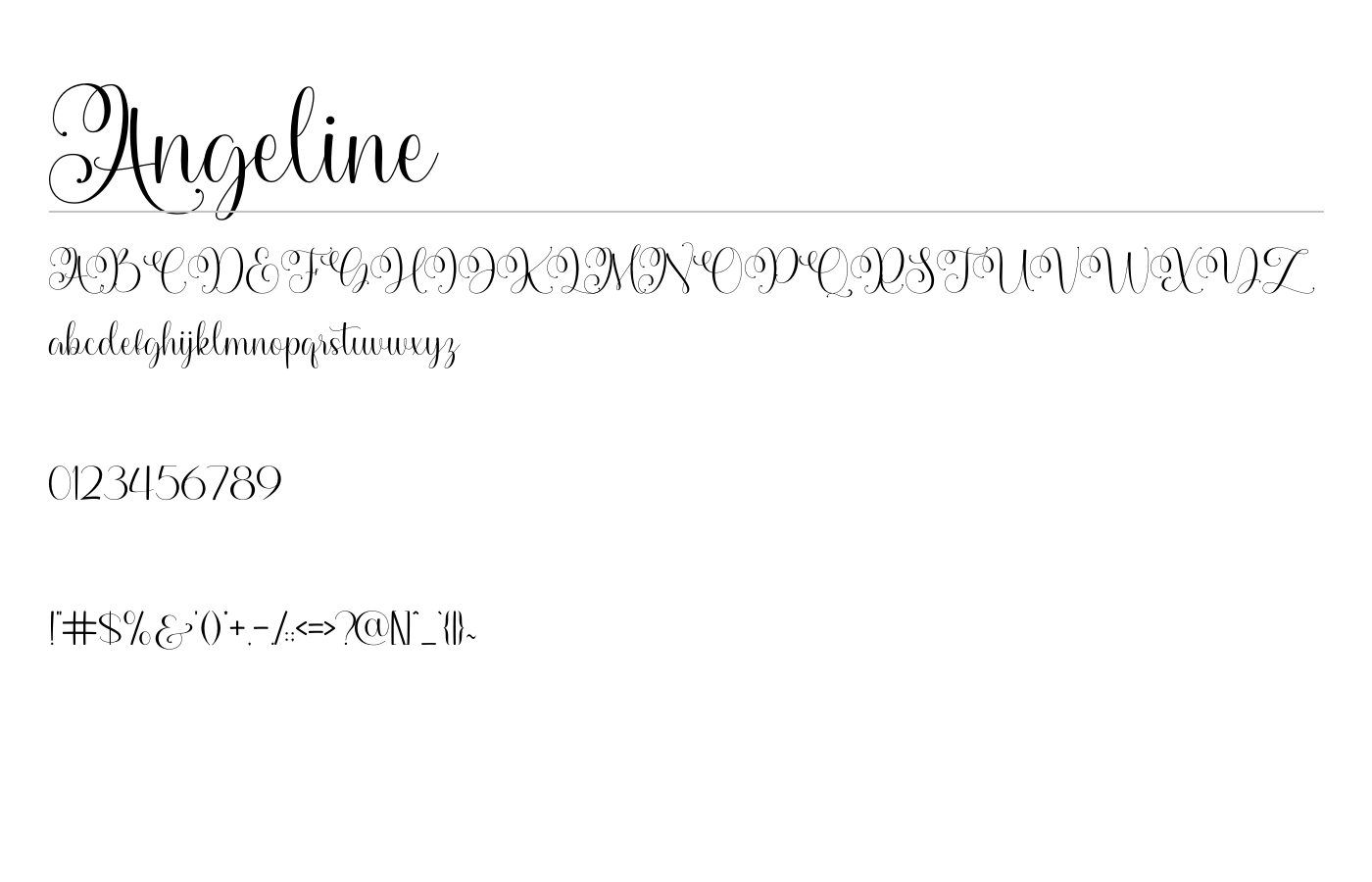
Angeline is an elegant script font with delicate, flowing lines and graceful flourishes, giving it a refined and ornamental feel. Its slender strokes and high contrast make it ideal for luxury branding, wedding invitations, and sophisticated editorial designs that require a stylish and feminine touch. This font shines best in display settings where its intricate details can be fully appreciated.
Angeline Font
About Angeline Font
| Font family | Angeline Font |
| Designer | Revo Farisky |